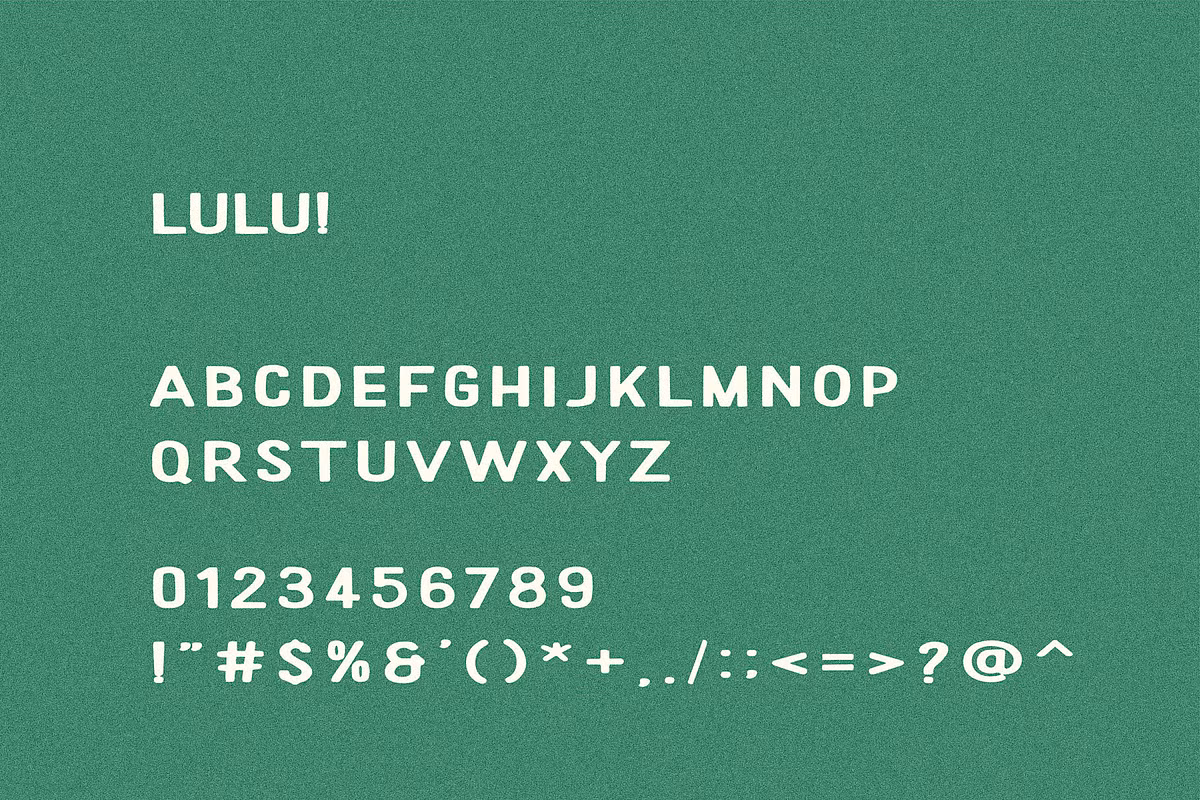
Lulu! is a really cool new font that doesn’t have the little lines at the ends of the letters, and it’s been getting a lot of attention from people who love typography. You can now get this font by downloading it, but you have to pay for it – the price is 80 quarters, which is a big change from when it was free. What makes Lulu! special is its one-of-a-kind look and the fact that you can use it in so many different ways, which is why designers are going to love using it to make their projects stand out.
Understanding Lulu! Font Design
The Lulu! font has a simple, modern look because it doesn’t have the little lines at the end of the letters, which are called serifs. This makes it really versatile and great for lots of different design projects, like making posters or titles. It’s clean and easy to read, which is why designers like to use it. The fact that it’s a sans serif font means it can work well with all sorts of styles and themes, from formal to casual. Overall, Lulu! is a great choice when you want a font that’s sleek and contemporary.
Its boldness and clarity make it particularly effective for headlines, posters, and branding materials. This makes Lulu! perfect for catching the eye and conveying messages with a contemporary flair.
Design Style and Aesthetic
The aesthetic of Lulu! is characterized by its geometric shapes and balanced proportions. This font exudes a sense of professionalism while maintaining an approachable feel, which makes it ideal for both digital and print media.
With smooth curves and a consistent weight, Lulu! effectively maintains readability while making a strong visual statement. This combination makes it suitable for various design contexts, from creative agencies to corporate branding.
Character Sets and Features
What makes Lulu! really special is that it has a huge range of characters. You get all the uppercase letters, numbers, and punctuation marks, which means you can use it for lots of different things. So, if you’re making a logo, creating an ad, or building a website, Lulu! has everything you need to make your ideas look amazing. With all the characters at your fingertips, you can let your creativity shine and make something truly unique.
Whether you’re working on a big project or just something small, Lulu! is a great choice because it’s so versatile and easy to use. This wide range of characters gives you the freedom to use it in many different ways, making sure you can get your point across in a clear and creative way. The big letters really stand out, which makes them perfect for titles and important parts of your text.
Use Cases for Lulu!
The possibilities with Lulu! are endless, and it’s exciting to explore the various ways it can be used. Let’s take a look at some specific examples where this font really stands out.
- Branding: Use Lulu! for your company’s logo or branding materials to create a memorable identity.
- Posters and Flyers: Its boldness makes it perfect for promotional materials that need to grab attention quickly.
- Web Design: Lulu! can enhance your website’s typography, making it more engaging and accessible.
- Social Media Graphics: Stand out in social feeds by using Lulu! in your posts and stories for a cohesive look.
Pairing Suggestions for Lulu!
To maximize the impact of Lulu!, consider pairing it with complementary fonts. Here are some suggestions:
- Serif Fonts: Pair Lulu! with a serif font like Times New Roman or Georgia for a classic contrast that blends modernity with tradition.
- Script Fonts: For a more artistic touch, combine Lulu! with a script font such as Pacifico or Great Vibes to create an elegant yet casual look.
- Monospace Fonts: Using a monospace font, like Courier New, with Lulu can give your design a techy vibe.
Experimenting with these pairings can help you discover unique combinations that elevate your design projects.